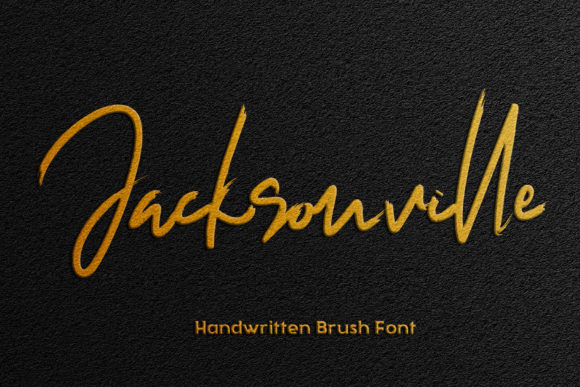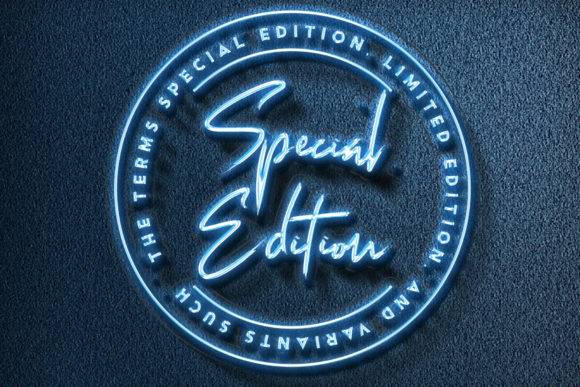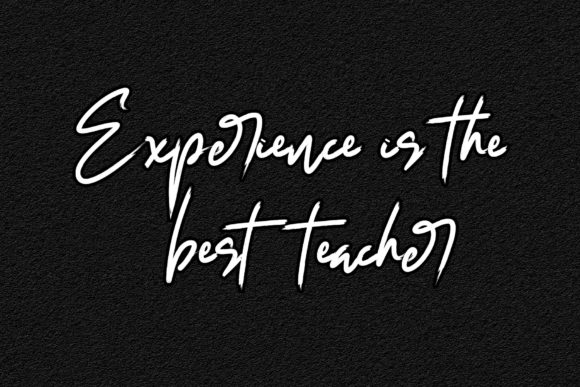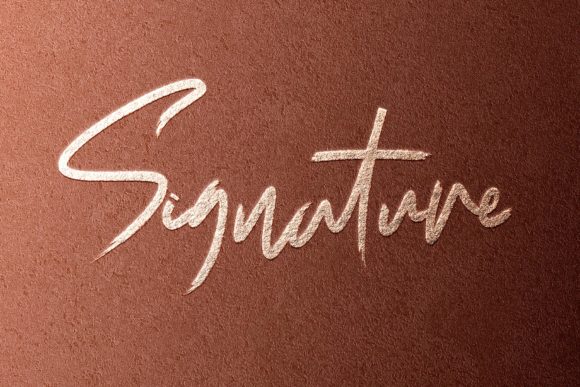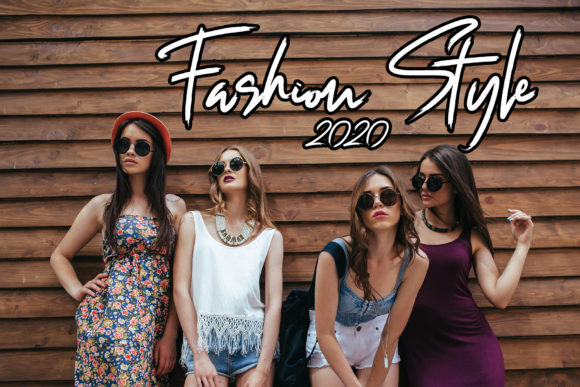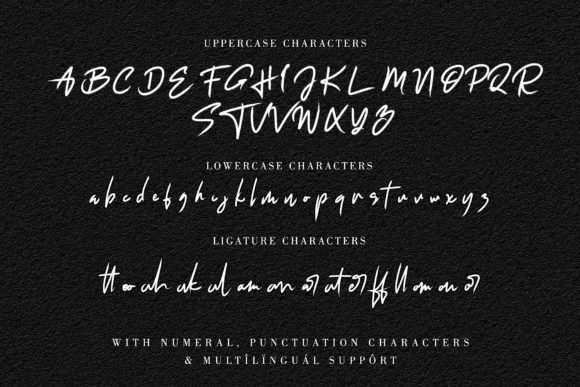
Jacksonville Font
About Jacksonville Font
Jacksonville is a stylish signature brush script. It has a simply unique and striking look that radiates personality.